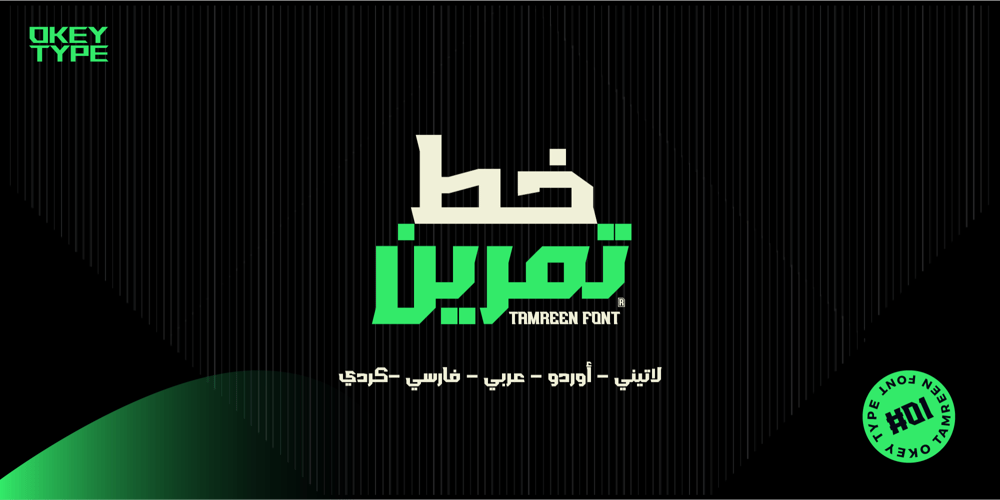
Tamreen Font Family was designed by Omar Kamal and published by OKey. Tamreen contains 5 styles and family package options. Tamreen Font is a bold sport font designed to add vibrancy to sport-inspired design projects, be they sport team designs, jerseys, leagues, movies, documentaries films posters games book covers titles titles or anything else.